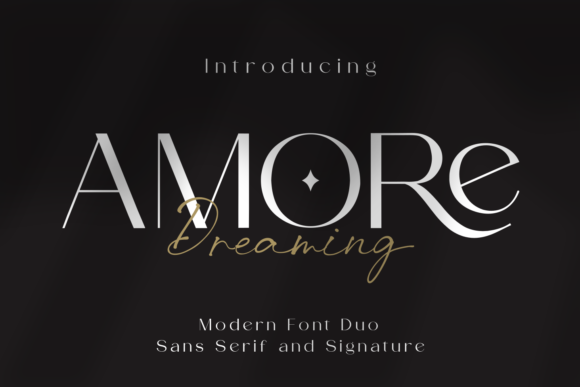
Introducing Amore Dreaming Font: Elevate Your Designs with Elegance
In the world of typography, fonts play a crucial role in conveying the tone and aesthetic of a design. For those seeking to add a touch of luxury and sophistication to their projects, the Amore Dreaming Font duo is an exceptional choice. This stunning pair combines an elegant sans serif font with a signature script font, creating a divine visual experience. In this article, we’ll delve into the features and benefits of Amore Dreaming, exploring how it can elevate your designs and streamline your creative process.
Key Features of Amore Dreaming Font
- Luxury Font Duo: Amore Dreaming consists of two complementary fonts: an elegant sans serif and a signature script font. This pairing offers versatility and allows for a wide range of design applications.
- Elegant Sans Serif Font: The sans serif component of Amore Dreaming exudes modernity and cleanliness, making it perfect for headings, titles, and any design element where clarity and sophistication are paramount.
- Signature Script Font: The script font in the Amore Dreaming duo adds a touch of elegance and personality to any design. Its unique swashes and flourishes make it ideal for creating stunning text pieces, signatures, and decorative elements.
Design Applications of Amore Dreaming Font
The versatility of Amore Dreaming Font makes it suitable for a myriad of design projects. Here are some applications where this font duo truly shines:
- Branding and Logos: The combination of a clean sans serif and an elegant script font can help create memorable and sophisticated brand identities.
- Wedding and Event Stationery: Amore Dreamingโs romantic and luxurious feel makes it perfect for wedding invitations, save-the-date cards, and other event-related materials.
- Packaging Design: For product packaging that stands out on shelves, Amore Dreaming can add a high-end feel to labels, tags, and wrappers.
- Advertising and Marketing Materials: Elevate your advertising with elegant typography that captures attention and communicates luxury.
- Digital Media: From website headers to social media graphics, Amore Dreaming can enhance the visual appeal of your digital content.
The Benefits of Using Amore Dreaming Font
Choosing Amore Dreaming Font for your projects comes with numerous benefits, including:
- Enhanced Creativity: The extensive features of Amore Dreaming inspire creativity, allowing designers to experiment with various combinations and styles.
- Consistency and Professionalism: The duoโs cohesive yet distinct styles ensure consistency across different design elements while maintaining a professional and polished look.
- Cross-Platform Compatibility: Being versatile and highly legible, Amore Dreaming fonts are suitable for both print and digital platforms.
Tips for Getting the Most Out of Amore Dreaming Font
To maximize the potential of Amore Dreaming, consider the following tips:
- Mix and Match: Combine the sans serif and script fonts in a single design to create visual interest and hierarchy.
- Experiment with Swashes: Take advantage of the script fontโs swashes to add flair to your text and make it more dynamic.
- Adjust Font Sizes: Playing with different font sizes can help emphasize key messages and create a more engaging layout.
- Consider Color: The right color choice can enhance the luxury feel of Amore Dreaming. Opt for metallic or pastel shades to complement its elegance.
Amore Dreaming Font duo stands out as a powerful tool for designers aiming to infuse their projects with luxury and elegance. Its combination of a sophisticated sans serif font and a beautiful script font, along with PUA encoding for easy access to glyphs and swashes, makes it a versatile and creative asset. Whether you’re working on branding, advertising, packaging, or digital media, Amore Dreaming offers the perfect blend of style, functionality, and inspiration. Elevate your designs to new heights of sophistication with Amore Dreaming.